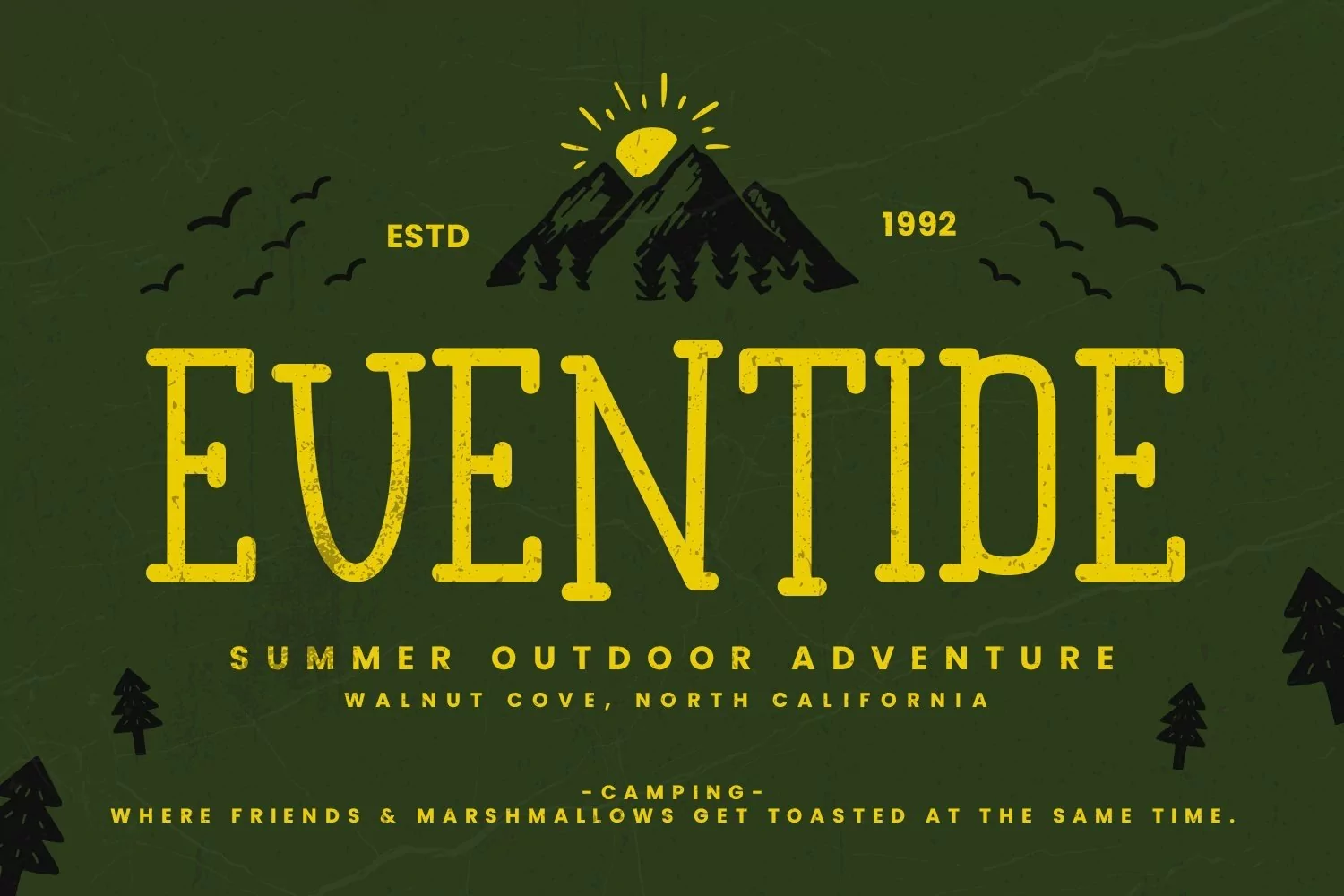
Web Font Salty Potato
Salty potato is a display typeface. Perfect for display, logo, badges, branding, packaging, merchandise, header, tittle, quotes and many more.